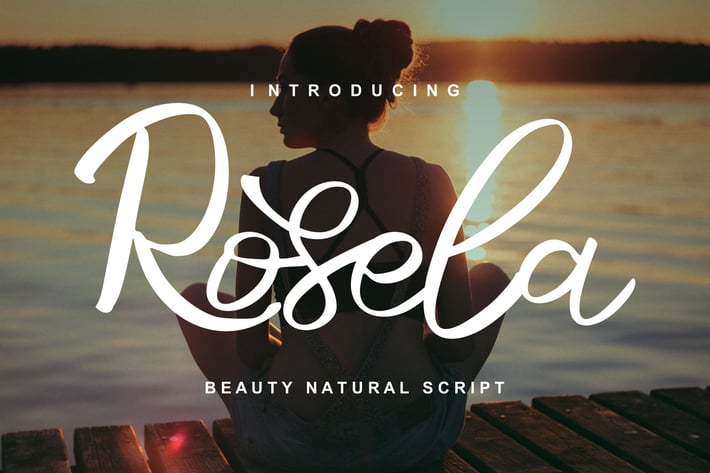
Rosela | Beauty Natural Script Font
Rosela | Beauty Natural Script Font with a calligraphy style, So beautiful on invitation like greeting cards, branding materials, business cards, quotes, posters, and more!